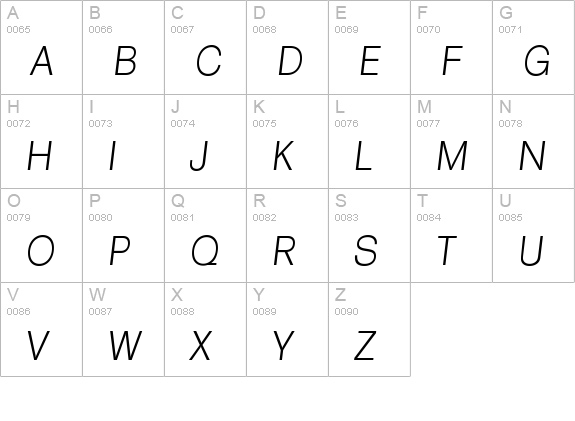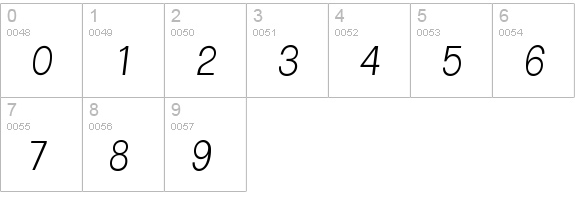
Formula-LightIta Font Details
Formula-LightIta is a sophisticated and elegant font designed to bring a touch of modernity and style to any project. With its sleek lines and sleek curves, this font exudes a sense of professionalism and sophistication. The light weight of the font gives it a delicate and airy feel, making it perfect for use in a wide range of design applications. One of the best things about Formula-LightIta is that it is available for free download at FontsMarket.com. This means that you can easily access this beautiful font and use it in your projects without any cost. Whether you are working on a creative design project, a professional presentation, or simply want to add a touch of elegance to your personal projects, Formula-LightIta is the perfect choice. With its clean and modern aesthetic, Formula-LightIta is sure to make a statement and leave a lasting impression. Download it for free today and elevate your designs with this stunning font.